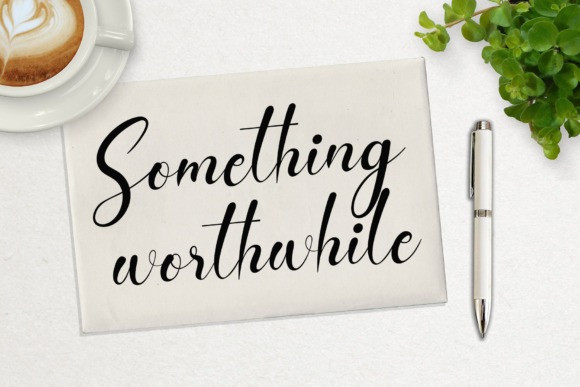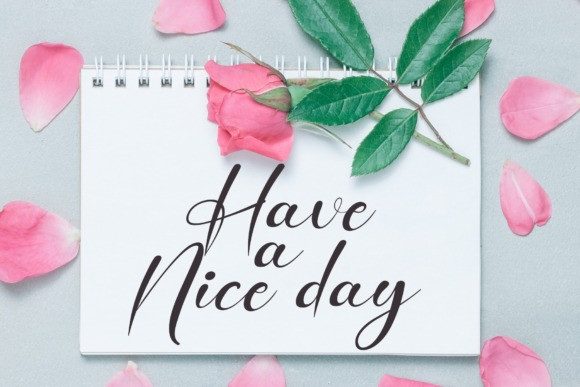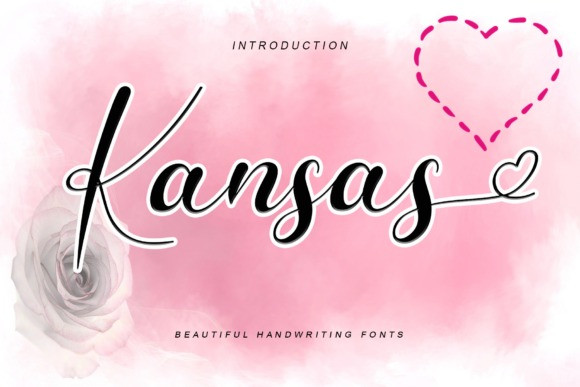
Kansas Script Font
Kansas is a beautiful light handwritten font with a unique feel and a stunning impact. It will add a luxury spark to any design project that you wish to create!